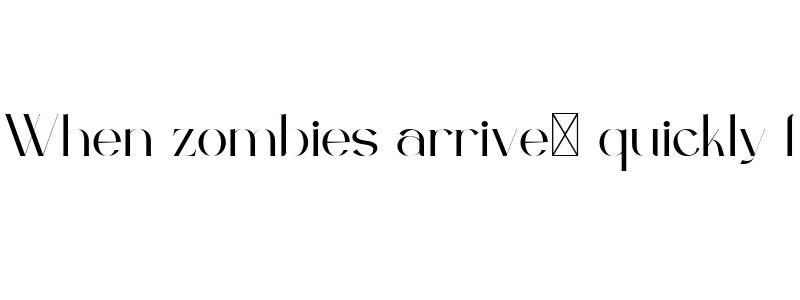
Berfilem - FREE Font
Trendy, elegant, artistic, luxury & modern style serif font for your fancy projects. Elegant, fashion and editorial style on Berfilem font will be great for any branding project. You can find also full premium Berfilem font on deeezy.com
• great for modern branding projects
• only basic letters a-z and a-z in this free font version